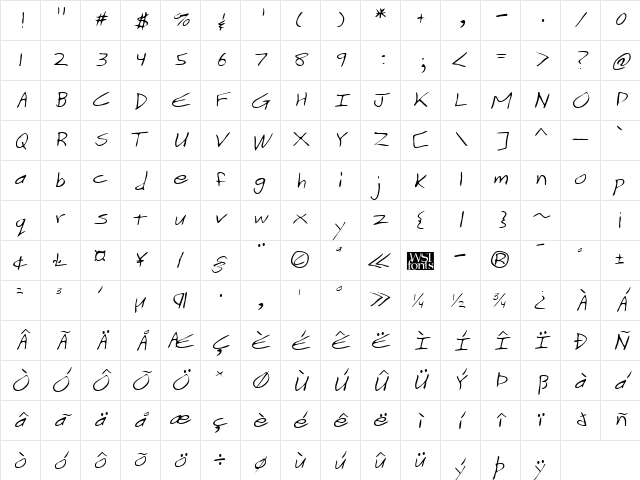
ZonkersHand Regular Free Font
ZonkersHand Regular
ZonkersHand Family
Design Context for ZonkersHand
ZonkersHand flows with the natural rhythm of handwritten lettering, making it ideal for designs that call for warmth and personal expression.
Font Pairing: Combine ZonkersHand with a simple geometric sans for maximum contrast - the tension between flowing curves and clean structure is a classic typographic pairing.
Pro Tip: Use ZonkersHand for short runs of text - names, titles, or taglines. Extended body copy in script faces tires the eye quickly.